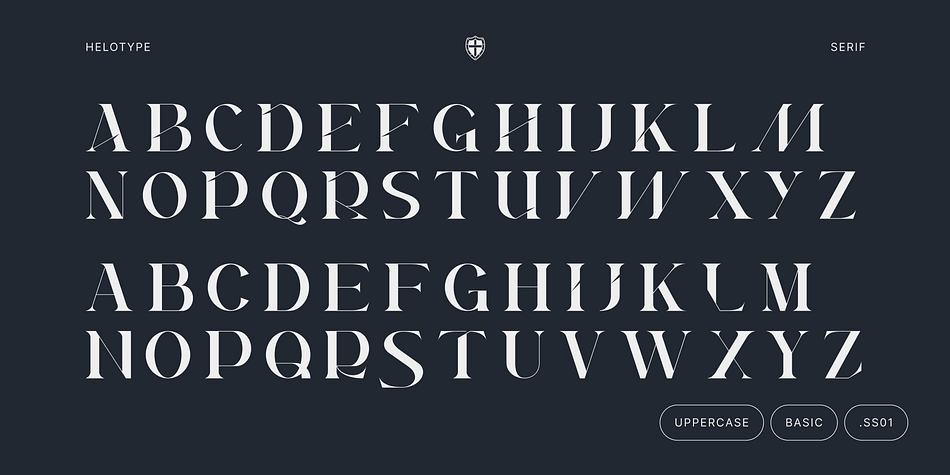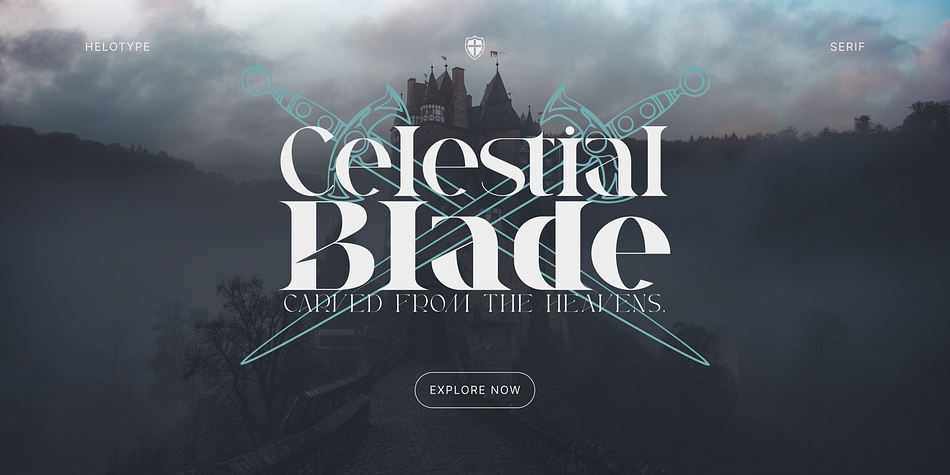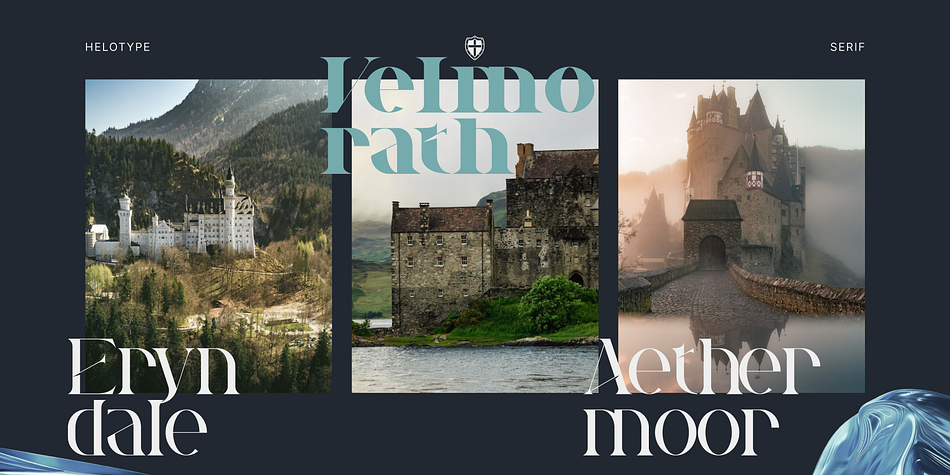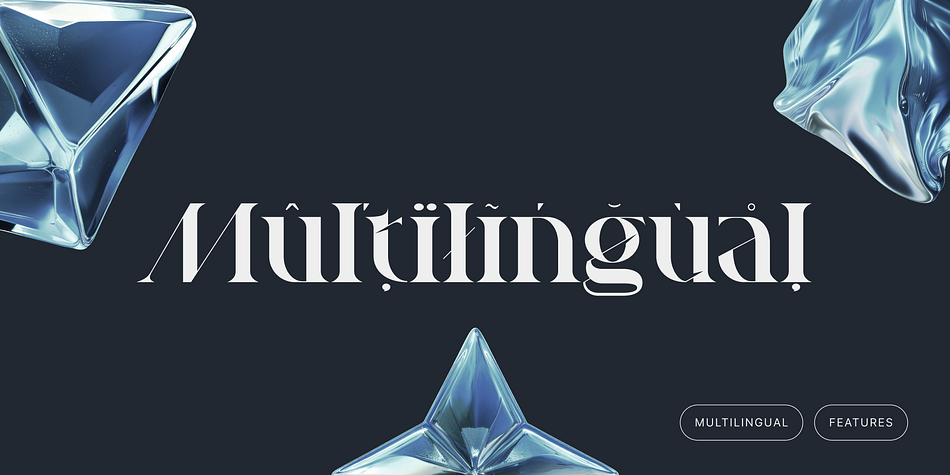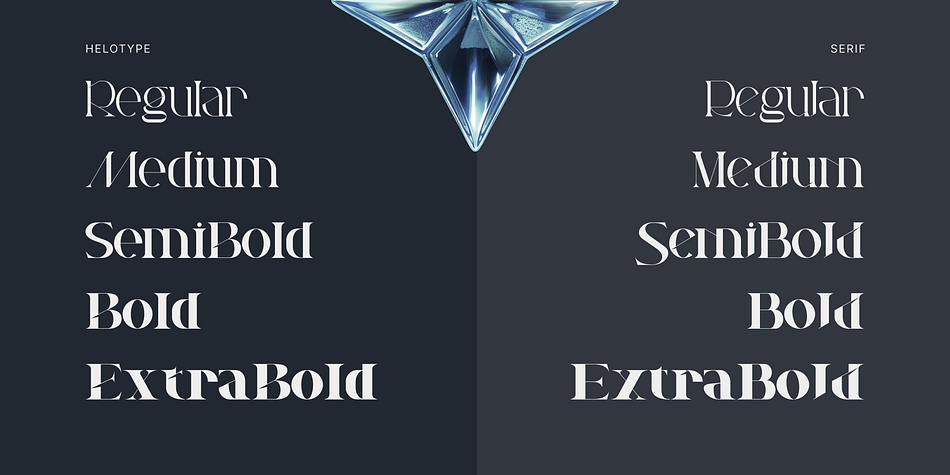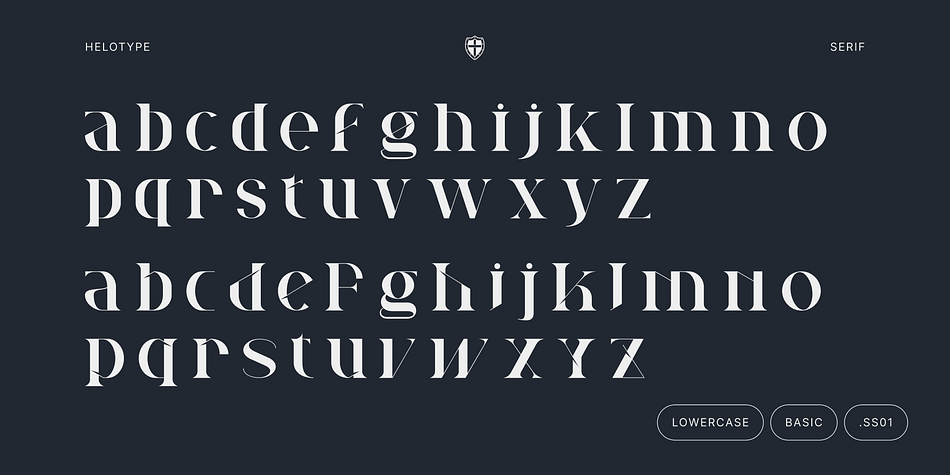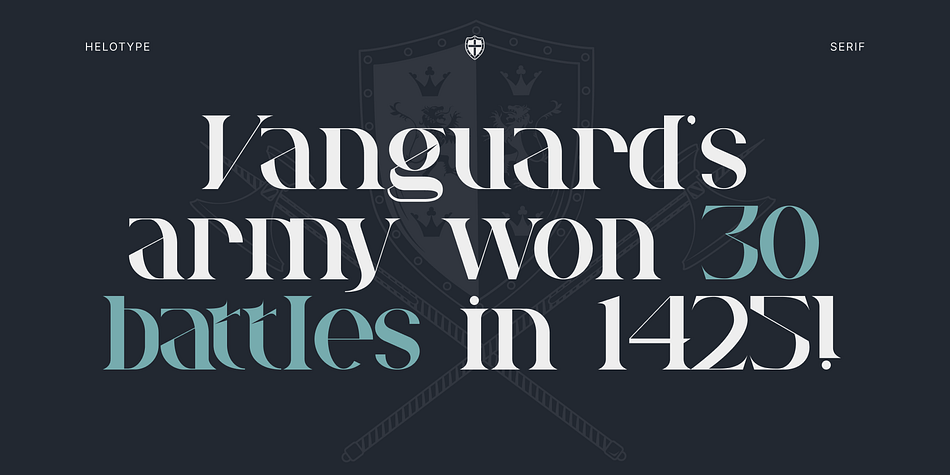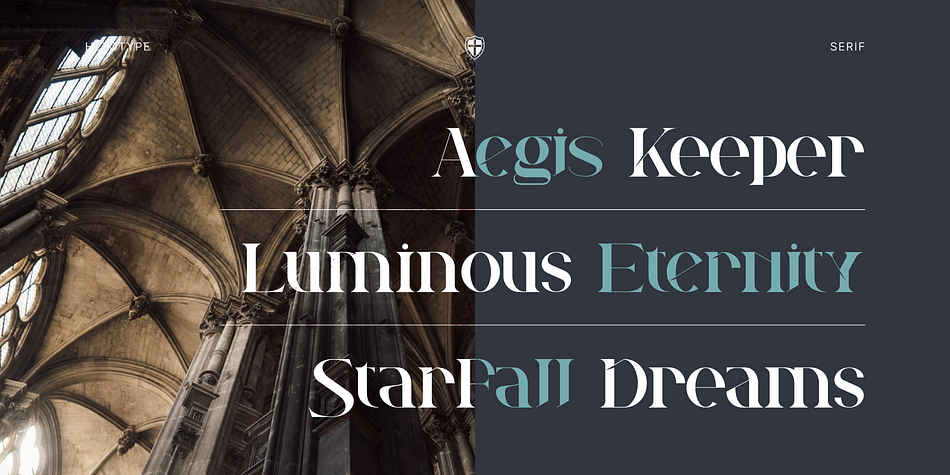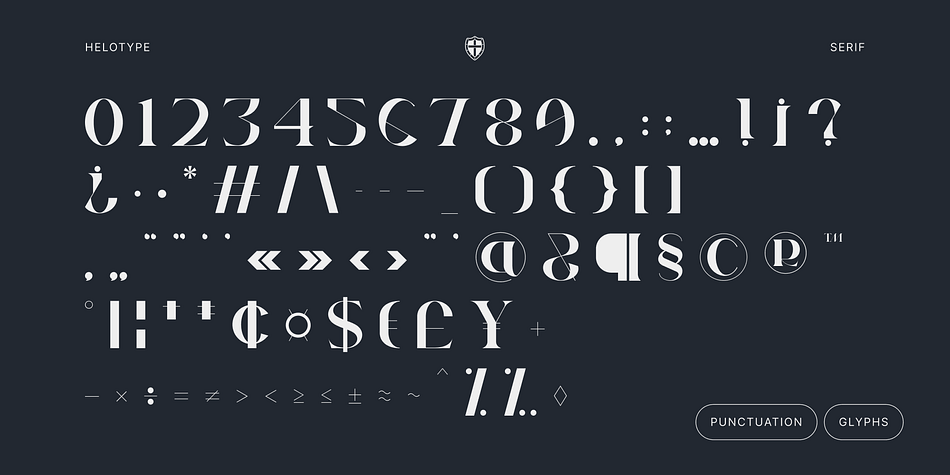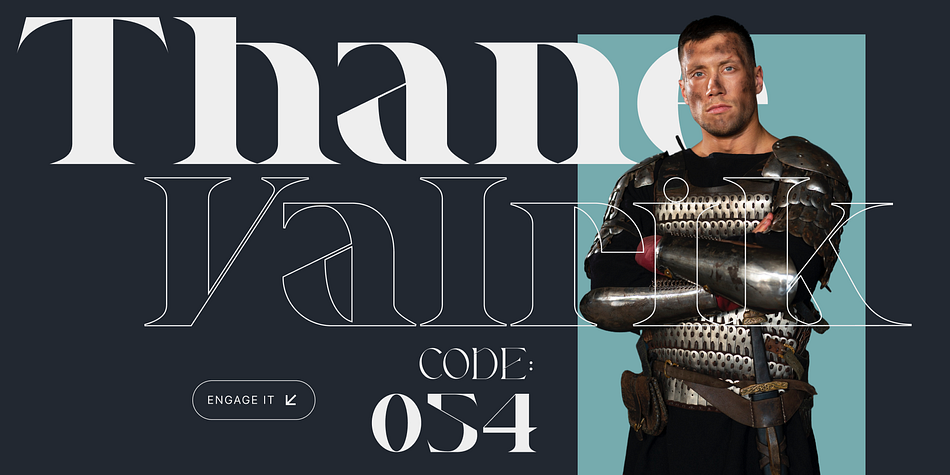
Eldritch Vanguard
Eldritch Vanguard is a serif font family. This typeface has five styles and was published by Helotype.
Embark on a typographic journey into the realm of the unknown with Eldritch Vanguard, a versatile serif font family that exudes power and mystery. With 5 versatile weights, a collection of alternate glyphs, ligatures, and multilingual support, this font is perfect for creating striking designs that command attention. Whether you’re designing a fantasy game logo, a historical drama movie poster, or a dark fantasy book cover, Eldritch Vanguard is the perfect tool to bring your visions to life.
FEATURES
Uppercase and lowercase letters
ligature and alternates feature
Numbering and punctuations
Multilingual
Family 5 weight fonts